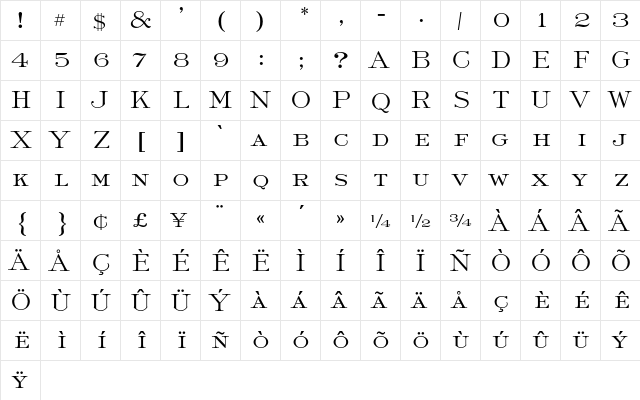
Roman Light AT Regular
Design Context for Roman Light AT Typeface
Roman Light AT is a composed and adaptable typeface that performs quietly and consistently across a wide range of design contexts. The delicate stroke weight brings airiness and refinement to layouts.
Pro Tip: Use Roman Light AT in both headline and body roles to test its range before committing to a single application.